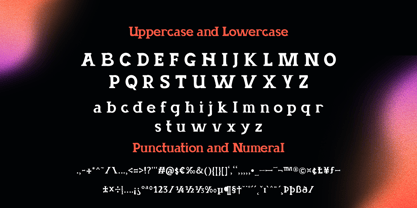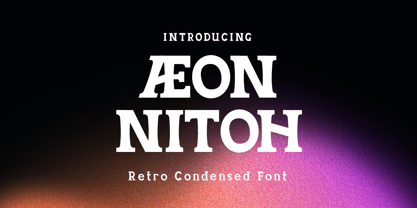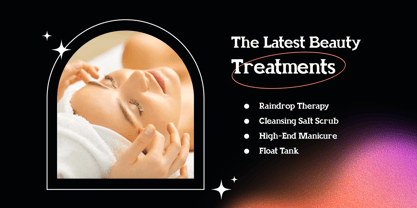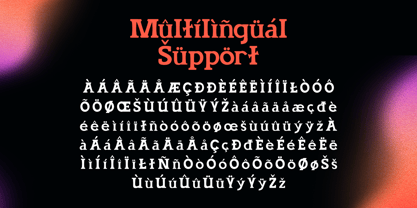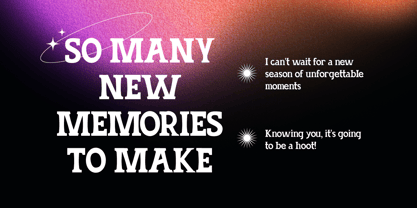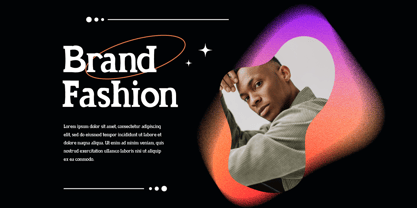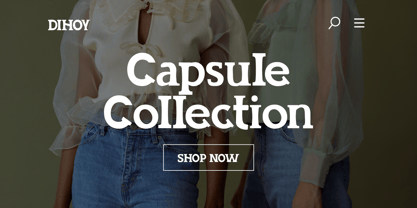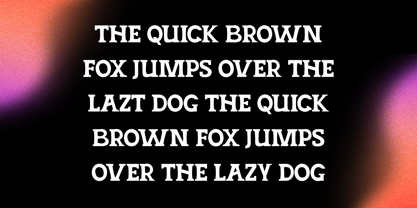
Aeon Nitoh
by Trabas Kriya
The Aeon Nitoh Font Family was designed by Murozakul Akhsan and published by Trabas Kriya. Aeon Nitoh contains 1 styles. More about this family
Aeon Nitoh is a retro font that takes you back in time. Its vintage-inspired characters are perfect for designs with a nostalgic feel. Whether you’re creating a poster for a retro-themed event or designing a logo for a brand with a vintage vibe, Aeon Nitoh is the perfect choice.
Designers: Murozakul Akhsan
Foundry: Trabas Kriya